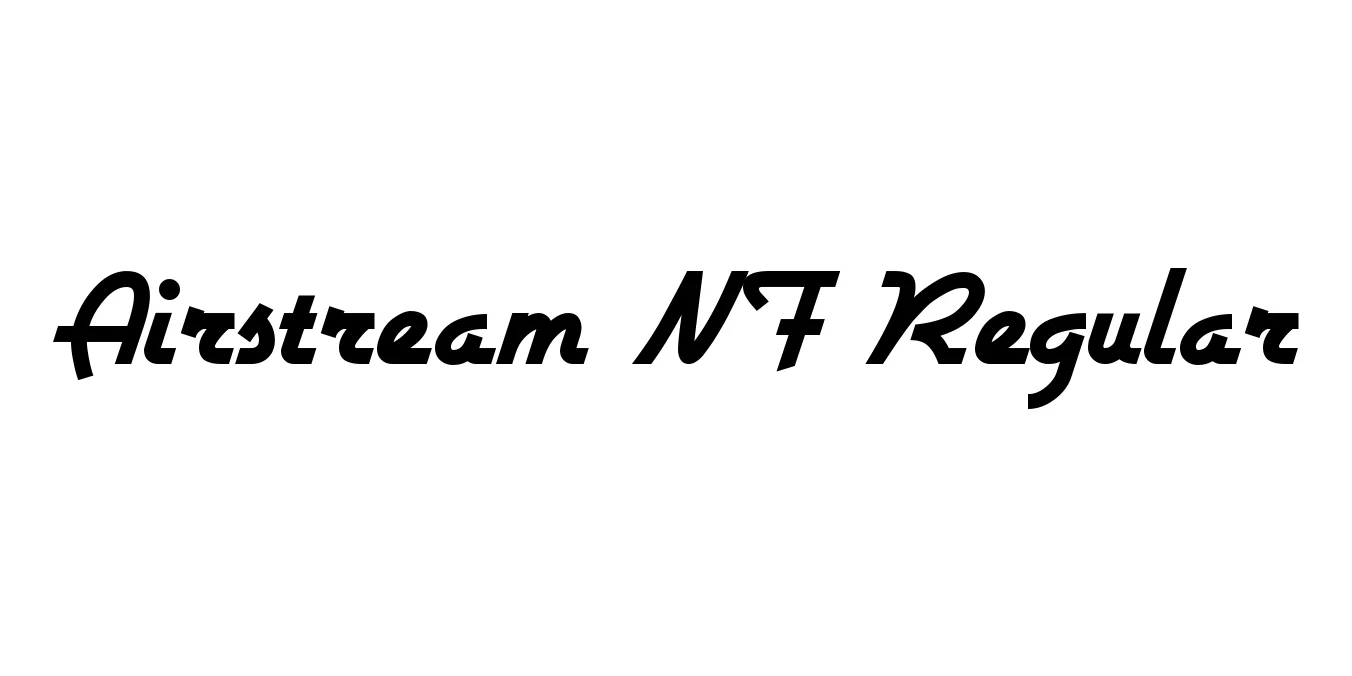
Airstream NF Regular
Designed by Nick Curtis
Airstream NF Regular is a quintessentially retro script font that draws heavy inspiration from the streamlined design movement of the 1940s and 1950s. It evokes the nostalgic charm of classic American chrome emblems, neon diner signs, and mid-century automotive branding. The typeface features smooth, flowing connections and bold, rhythmic strokes that provide a sense of speed and elegance characteristic of the Atomic Age.
Developed by the prolific designer Nick Curtis, this font is a staple for those looking to recreate an authentic vintage aesthetic. Its high visibility and distinct character make it a popular choice for display purposes, ensuring that any text set in Airstream NF stands out with a touch of historic flair and sophisticated craftsmanship, reminiscent of the golden era of roadside architecture.
Airstream NF Regular Best Uses
Ideal for creating identity systems for classic car clubs, retro diners, or boutique brands.
Perfect for event posters that require a bold, nostalgic display typeface.
Great for consumer goods looking to establish a heritage or mid-century modern look.